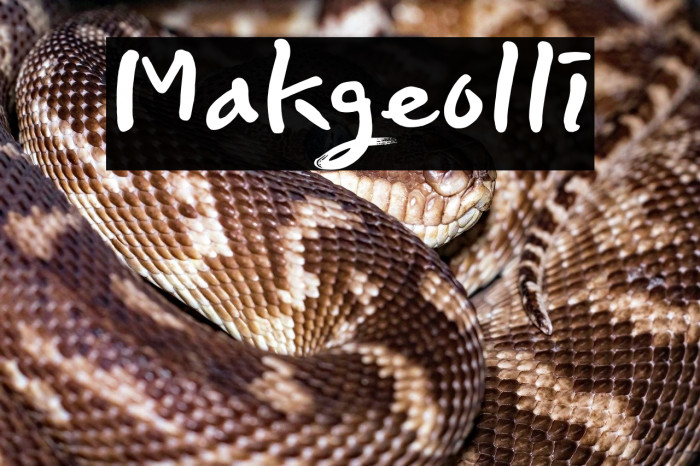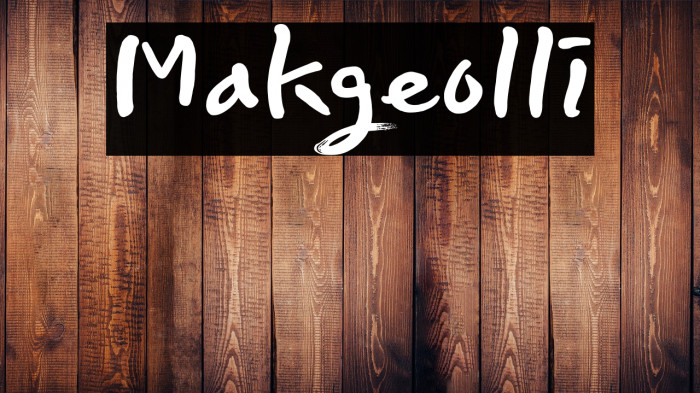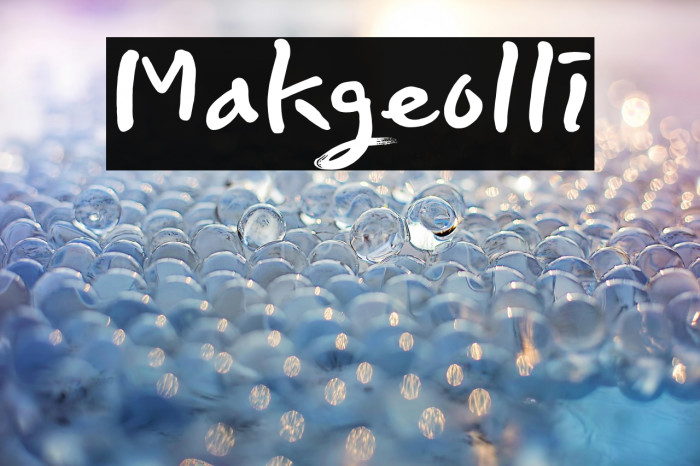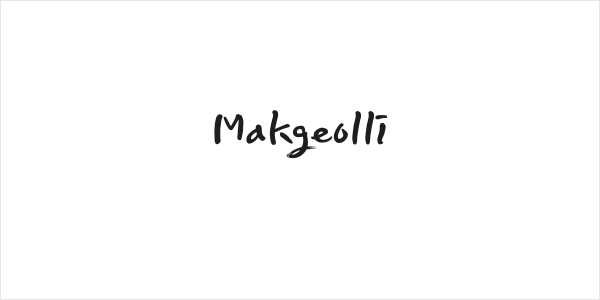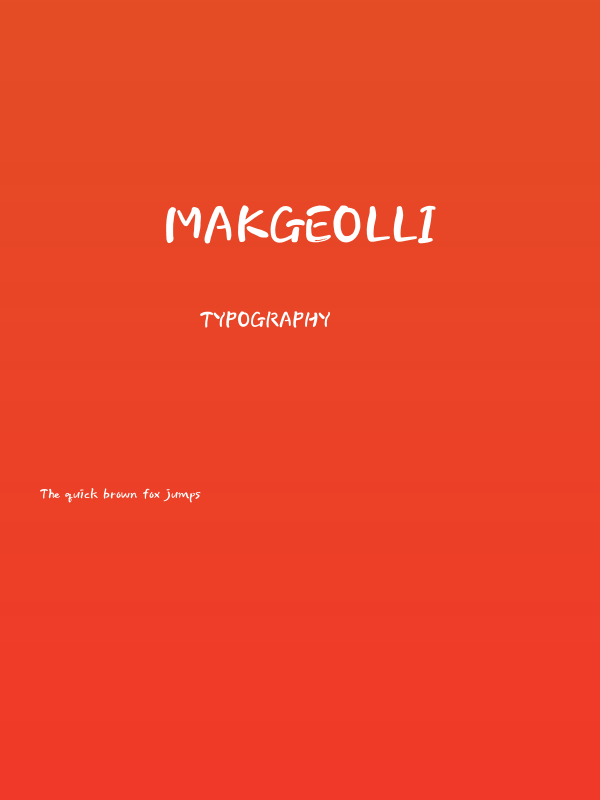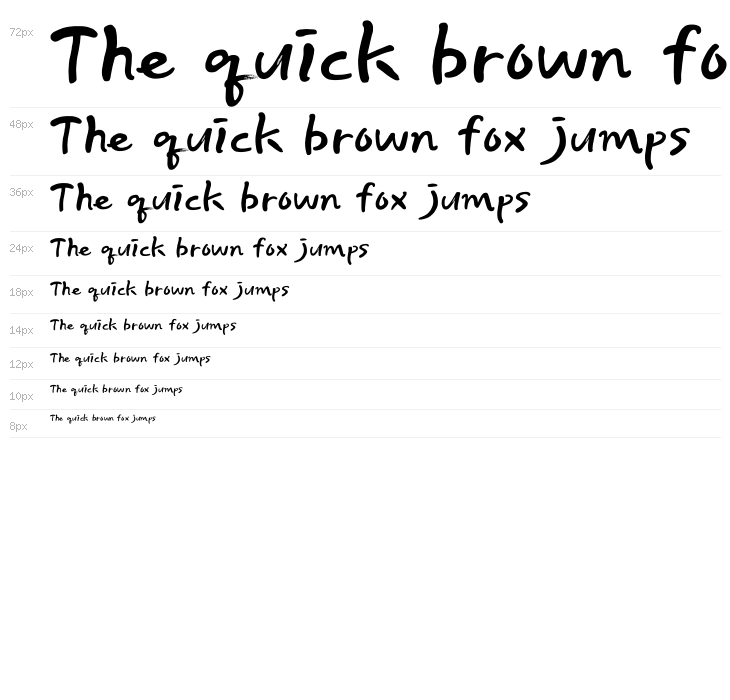
Makgeolli Font
Makgeolli Description
A playful, casual handwritten font with irregular strokes and a natural, brush-like appearance. The characters are slightly slanted and vary in thickness, giving an organic, informal feel.
| Overall Style | Casual, Playful, Organic |
| Use Case | Logos, Headlines, Informal body text, Creative projects |
| Proposed Projects | Greeting cards, invitations, posters, branding for artisanal products, social media graphics. |